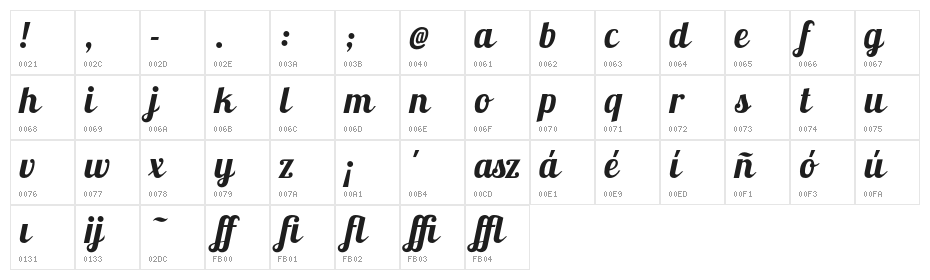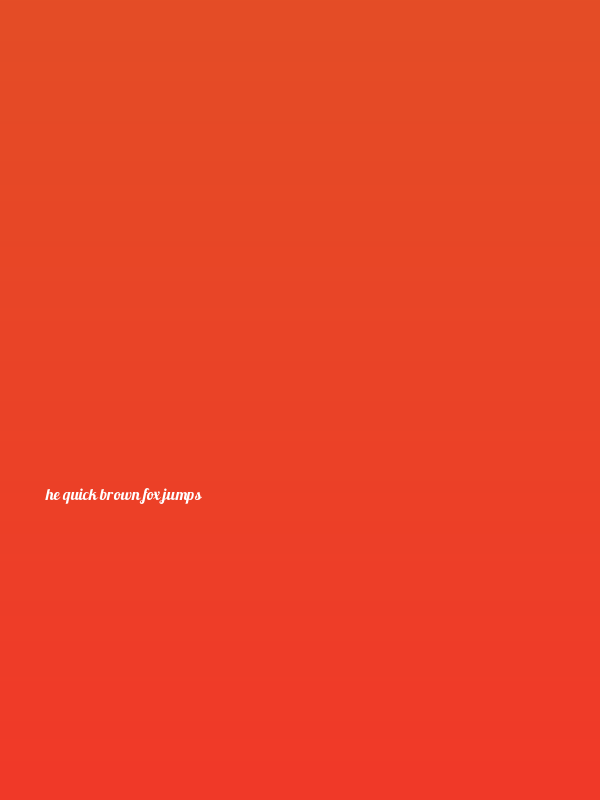
Lobsterbeta12 Font
Lobsterbeta12 Description
This font features a bold, cursive style with a modern twist. The characters are closely connected, creating a flowing and dynamic appearance. The strokes are thick and consistent, giving the font a strong presence. It has a playful yet elegant feel, making it suitable for various creative applications. The lowercase letters are particularly distinctive, with unique loops and curves that add character and charm. The font's overall design is both stylish and versatile, making it an excellent choice for projects that require a touch of sophistication and flair.
Use CaseLogos, Headlines, Invitations
Proposed ProjectsIdeal for branding, invitations, packaging, and social media graphics.